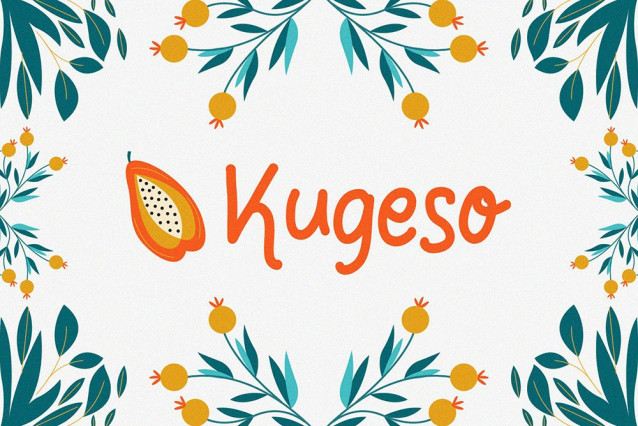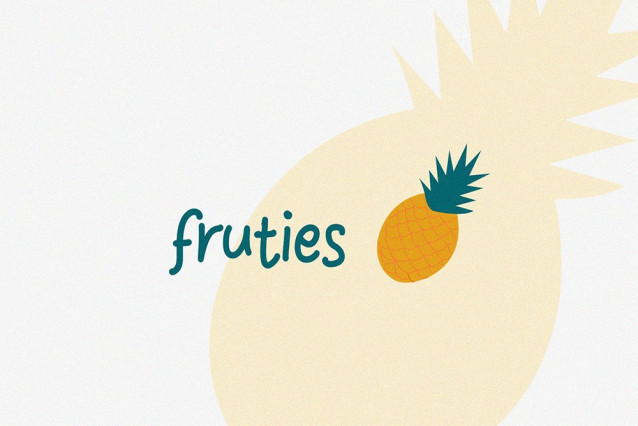
NCL Lucky Brown Font
NCL Lucky Brown Font is a fun handwritten and incredibly charming display font. It embodies playfulness and authenticity and is the perfect choice for any creative project. It’s stylish and modern-classic display font inspired by pop cultures and urban culture. Masterfully designed to become a true favorite, this font has the potential to bring each of your creative ideas to the highest level! It was purposely crafted to be used in large point sizes, although it doesn’t lose its magic in small point sizes